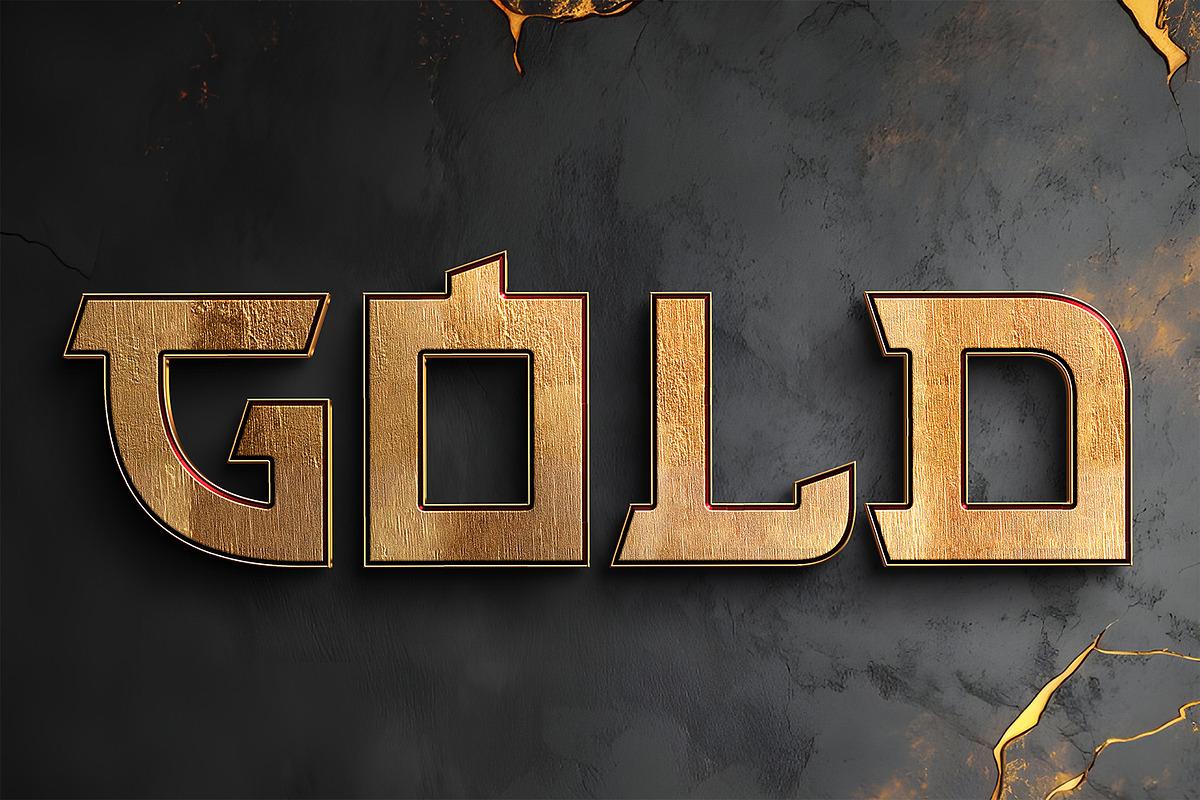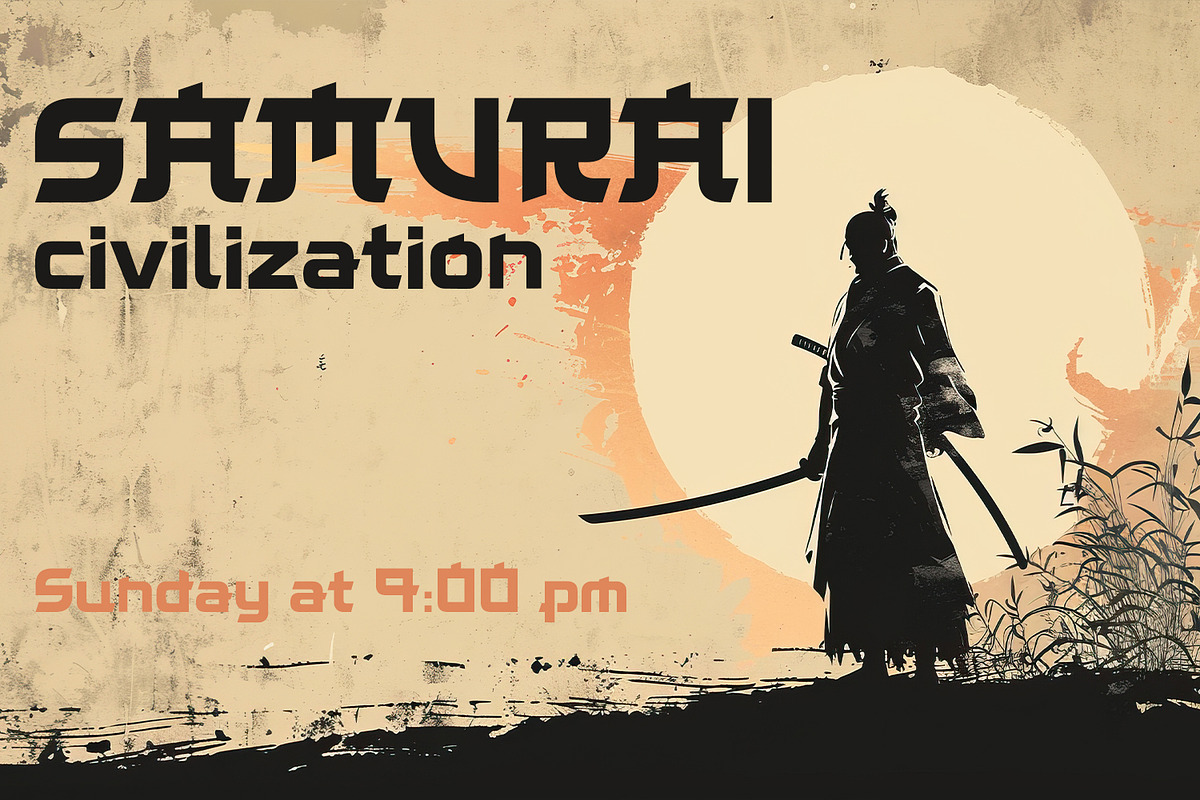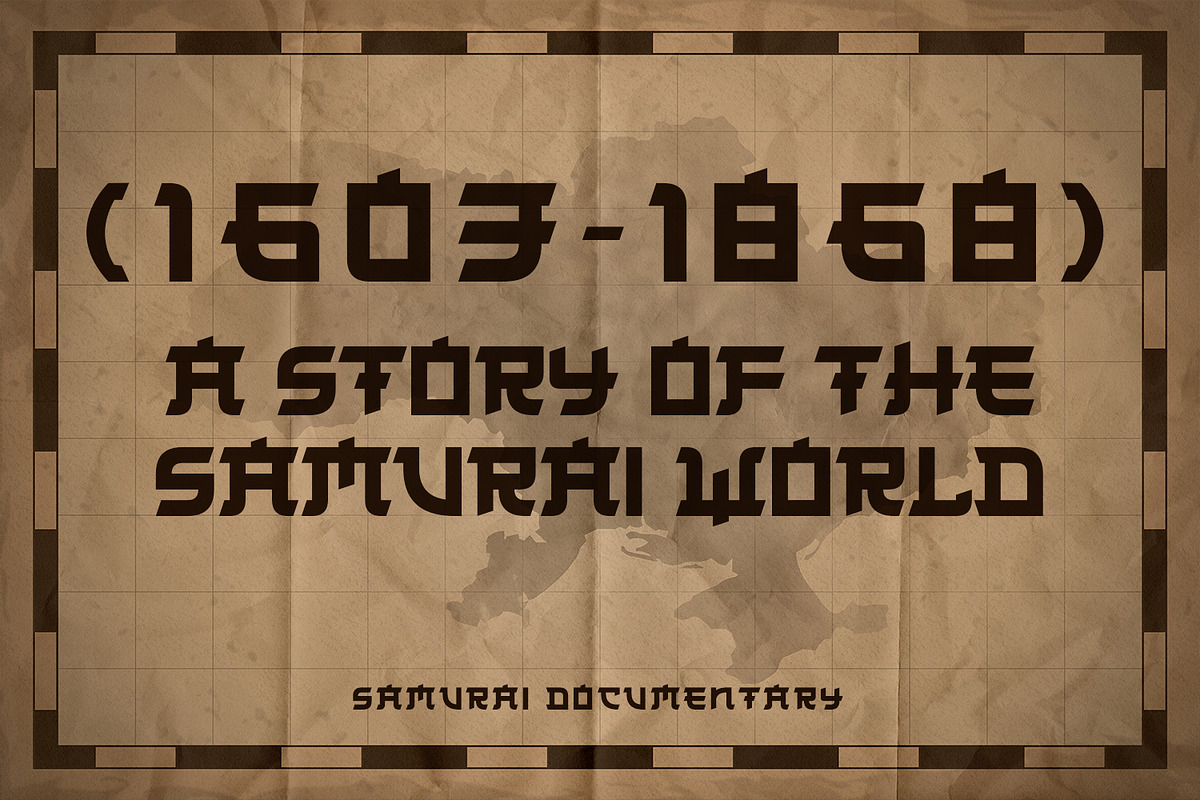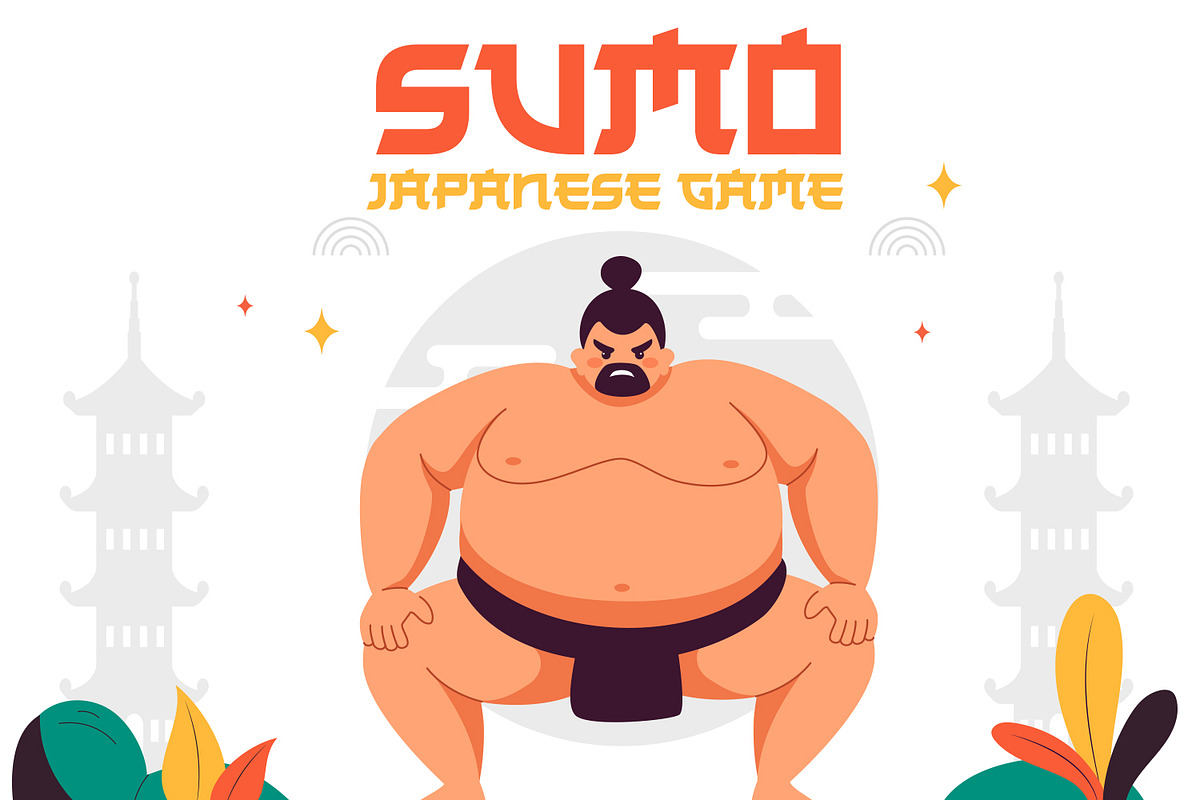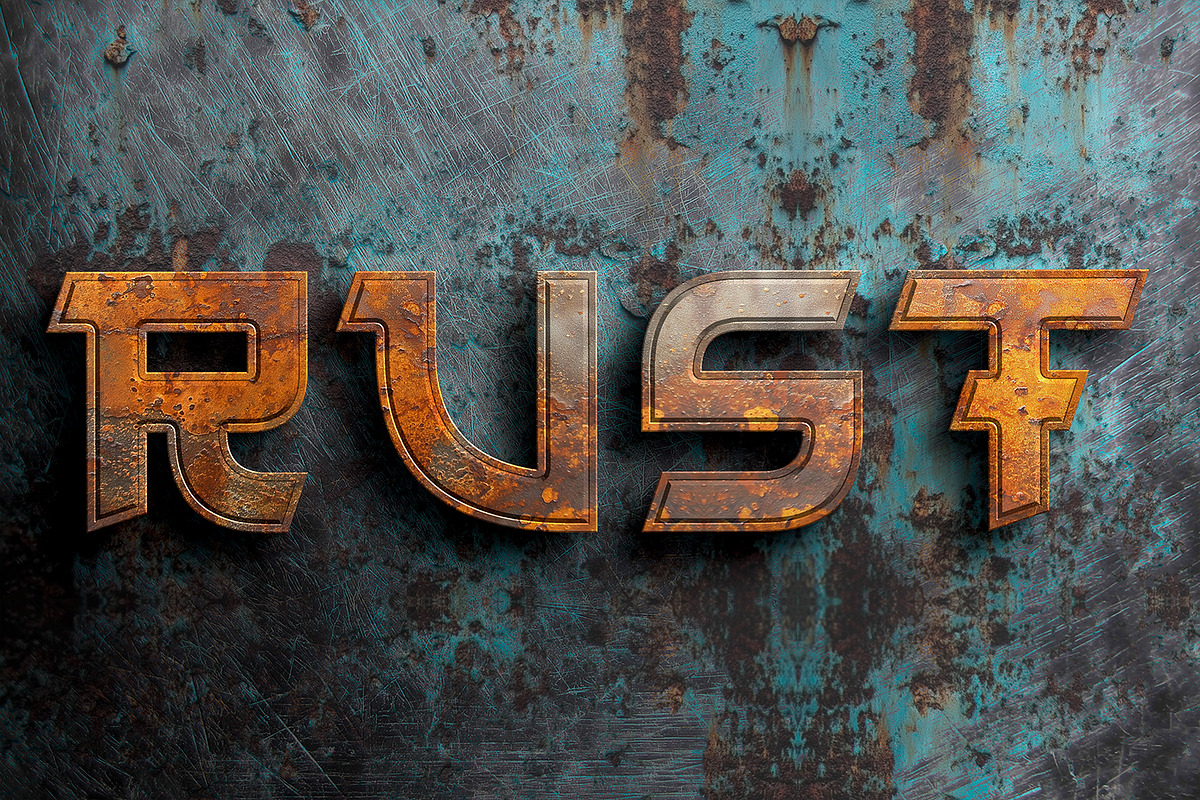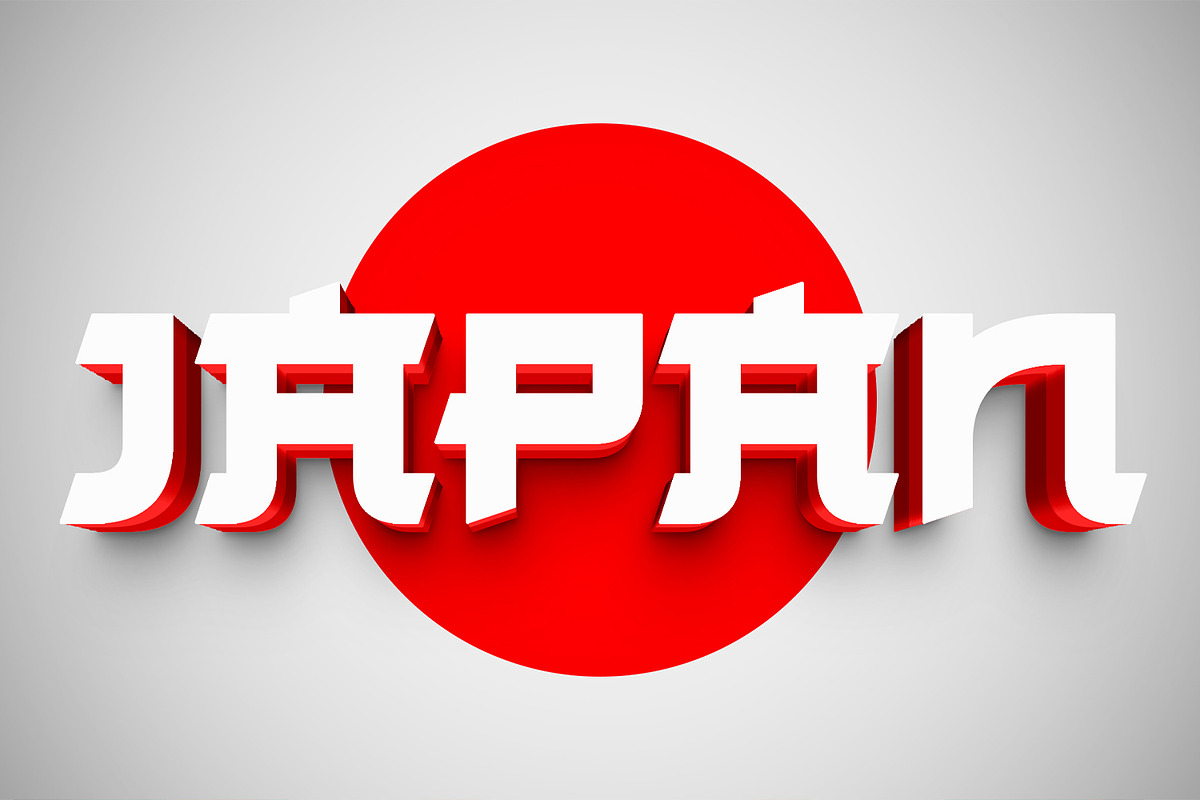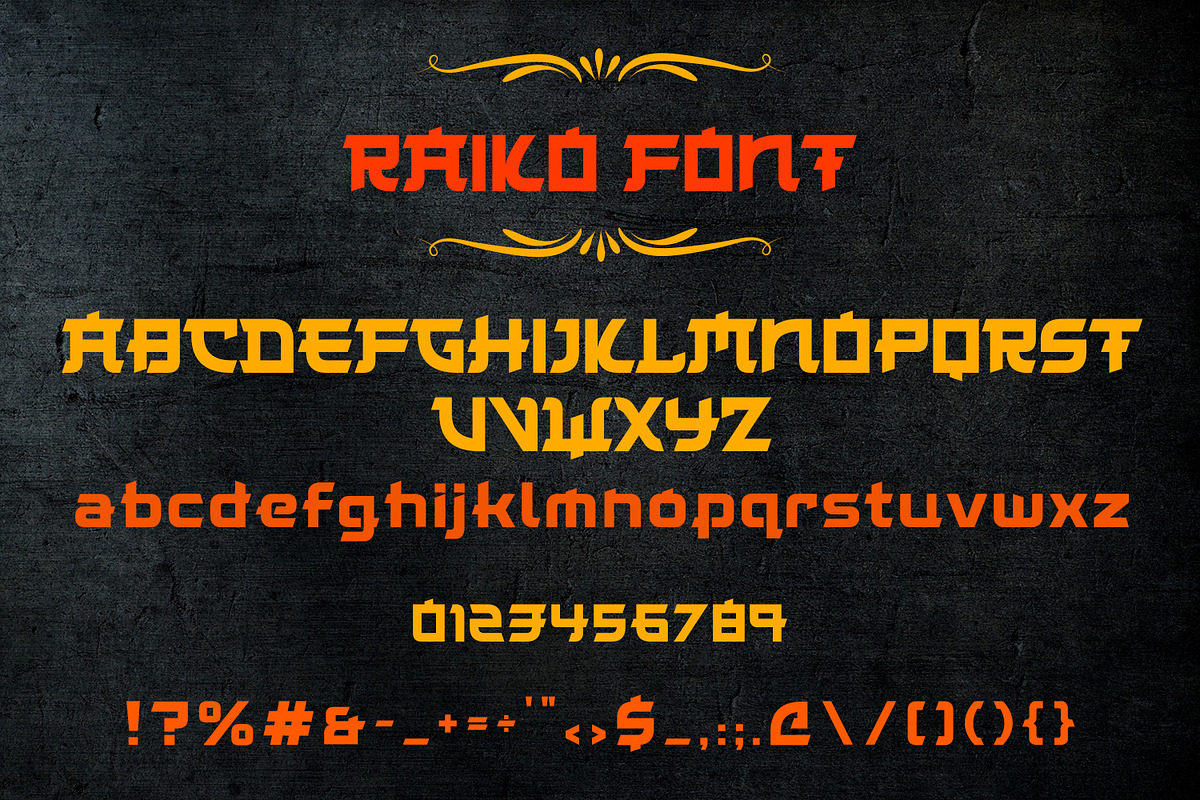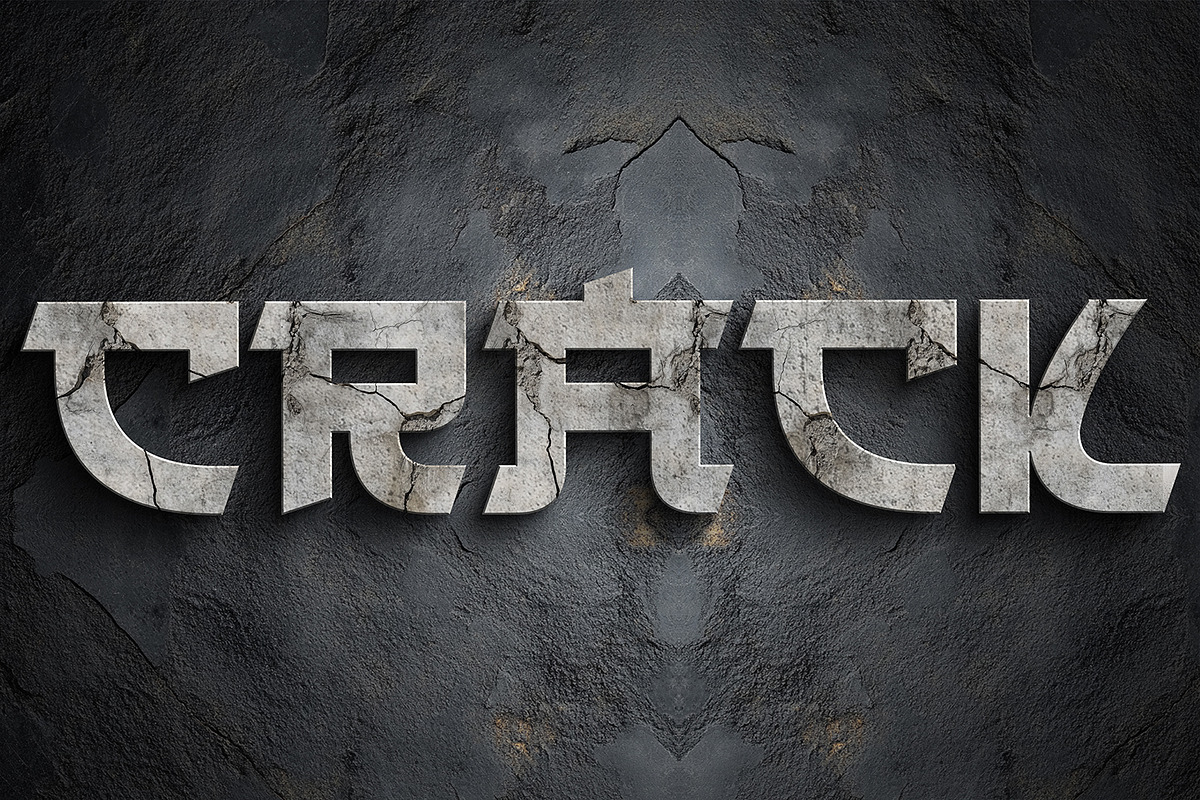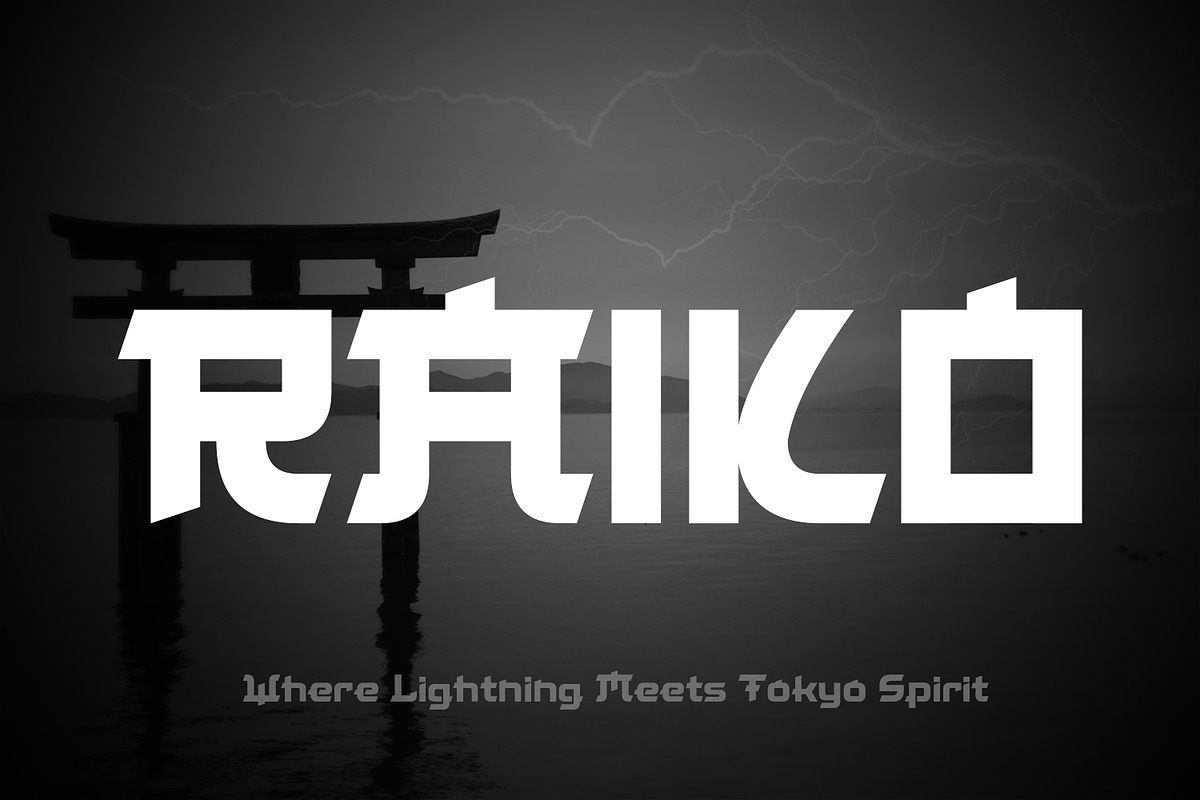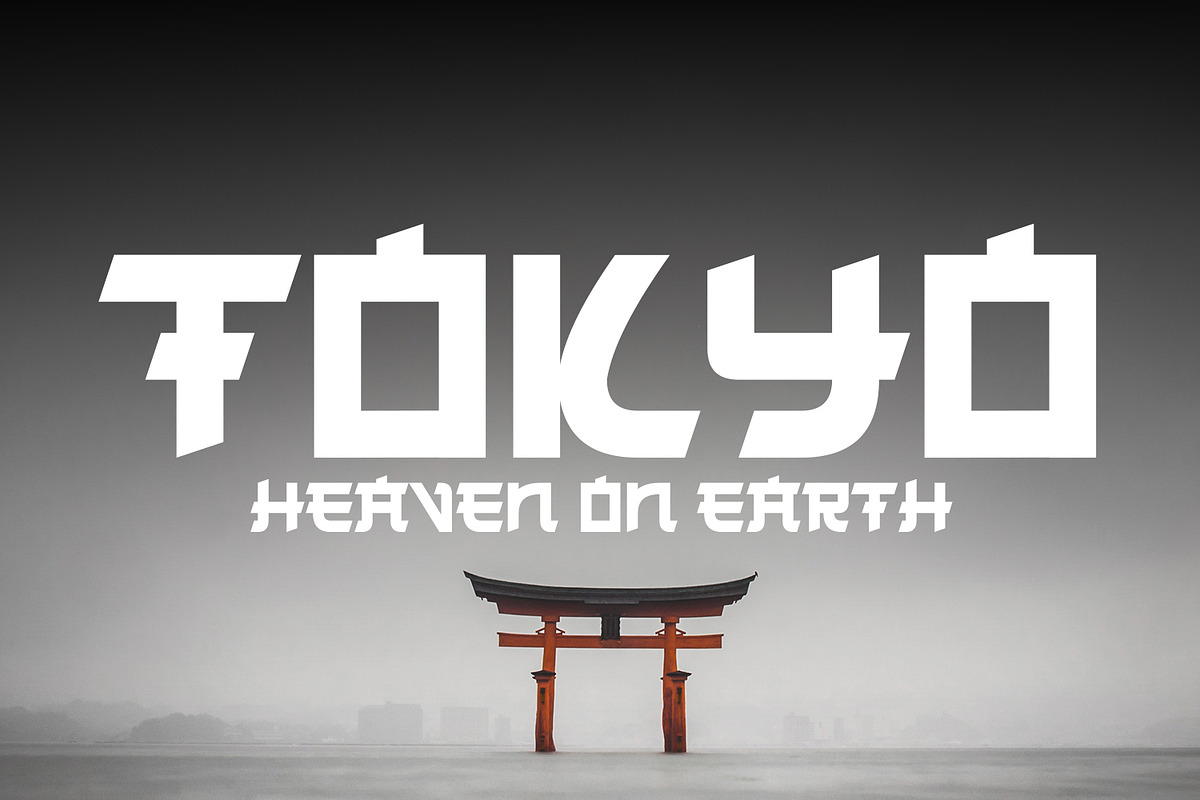
RAIKO – Japanese Inspired Futuristic
RAIKO is a bold Japanese-inspired display font designed with sharp angles, strong structure, and electrifying energy. Blending Neo Tokyo aesthetics with modern geometric construction, RAIKO delivers a powerful visual impact perfect for branding, posters, gaming titles, restaurant designs, streetwear, packaging, and cinematic headlines.
Inspired by the spirit of Japan and the force of lightning, this typeface features distinctive uppercase and lowercase characters, numbers, and punctuation that create a dynamic and futuristic presence. Its clean yet aggressive form makes it ideal for projects that require strength, precision, and cultural edge.
Perfect for: Japanese restaurant branding Samurai and anime posters Gaming and esports titles Streetwear and urban branding Packaging and product labels Cinematic and trailer typography
Make your designs strike with power and stand out with authentic Neo Tokyo attitude using RAIKO.